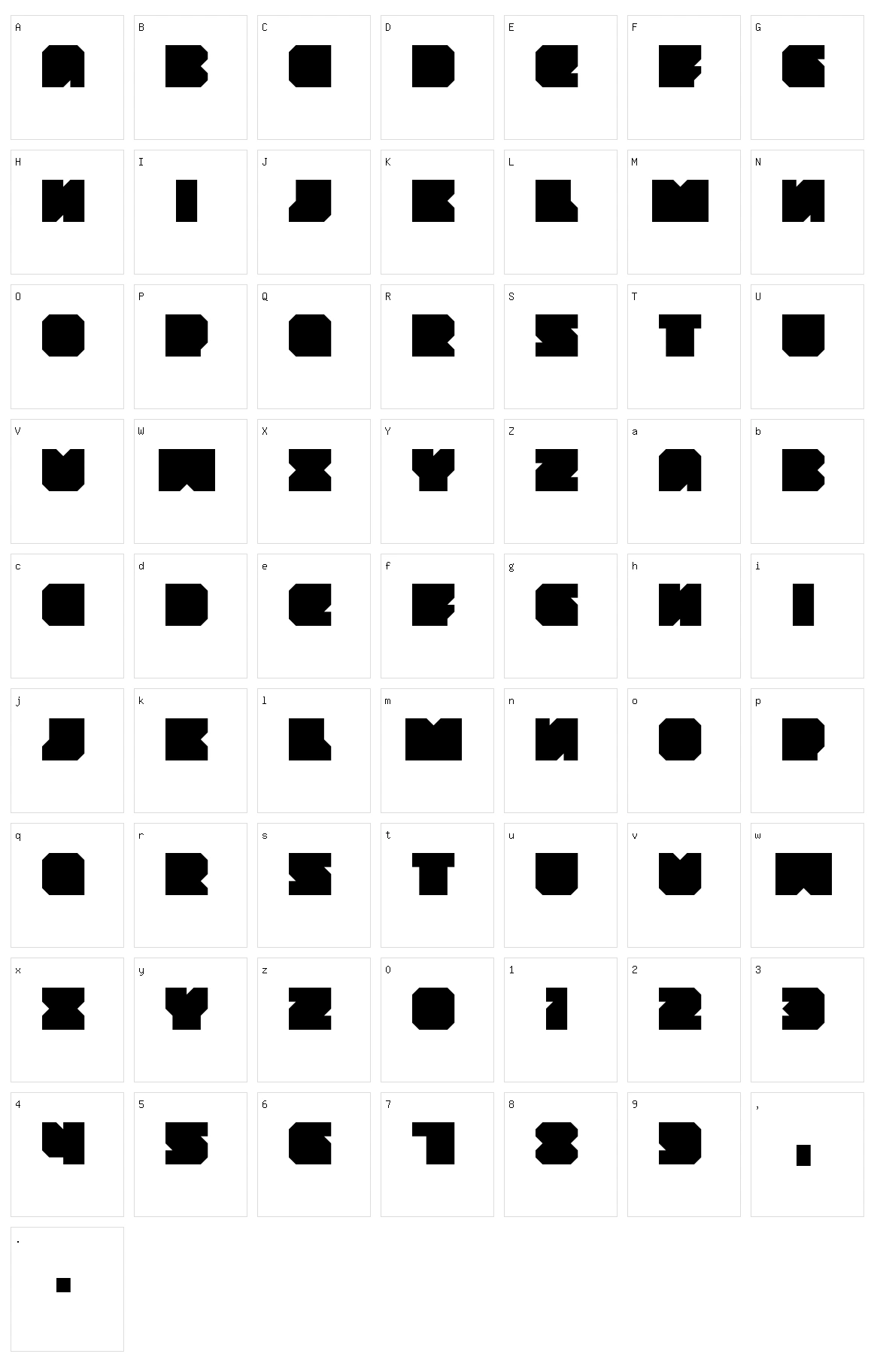
The free font Throwback is carefully designed by Segments Design (aka Last Soundtrack), showcasing a thoughtful balance of creativity and usability and falls under the Square font style. When you download the ZIP file, it contains only 4.43 KB of font files, making it lightweight and quick to download. Please review the license details below to understand permitted usage and distribution rights. If license information is not available, we recommend using this font for personal projects only or contacting the author directly for commercial usage permissions.